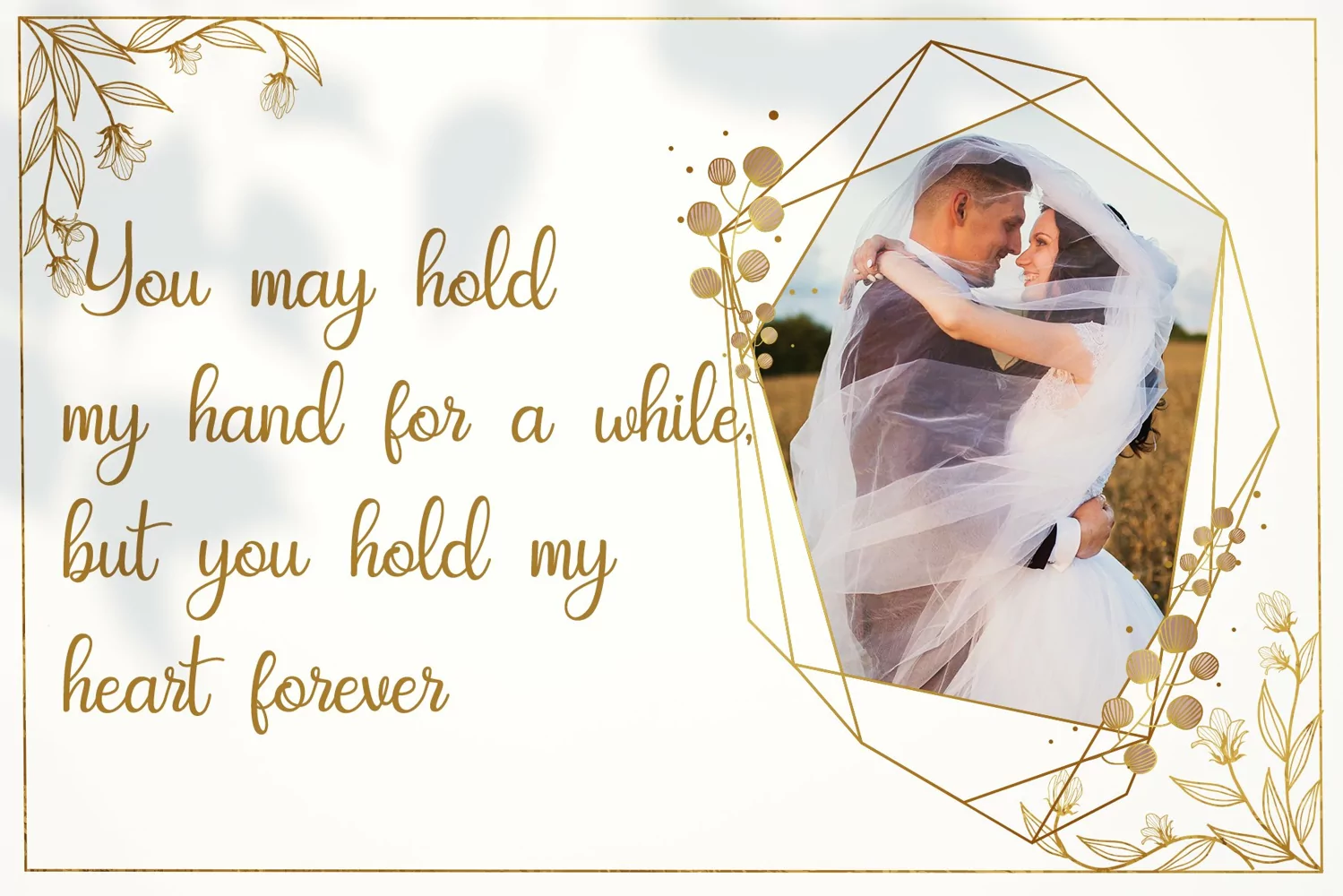
hello dove is mazing hand lettering look attractive and natural!
Every single letters have been carefully crafted to make your text looks beautiful.
This font includes 279 glyphs, including 78 alternate characters swashes and 52 alternates character with dove.
It has over 60 extended Latin characters for language support.
This font is suitable for invitation, branding, advertising, poster design etc, and also this font is PUA encoded so all characters are accessible via Character Map, Font Book, or the font management program of your choice.
Ligature Character
Multilingual Support
Alternate Character